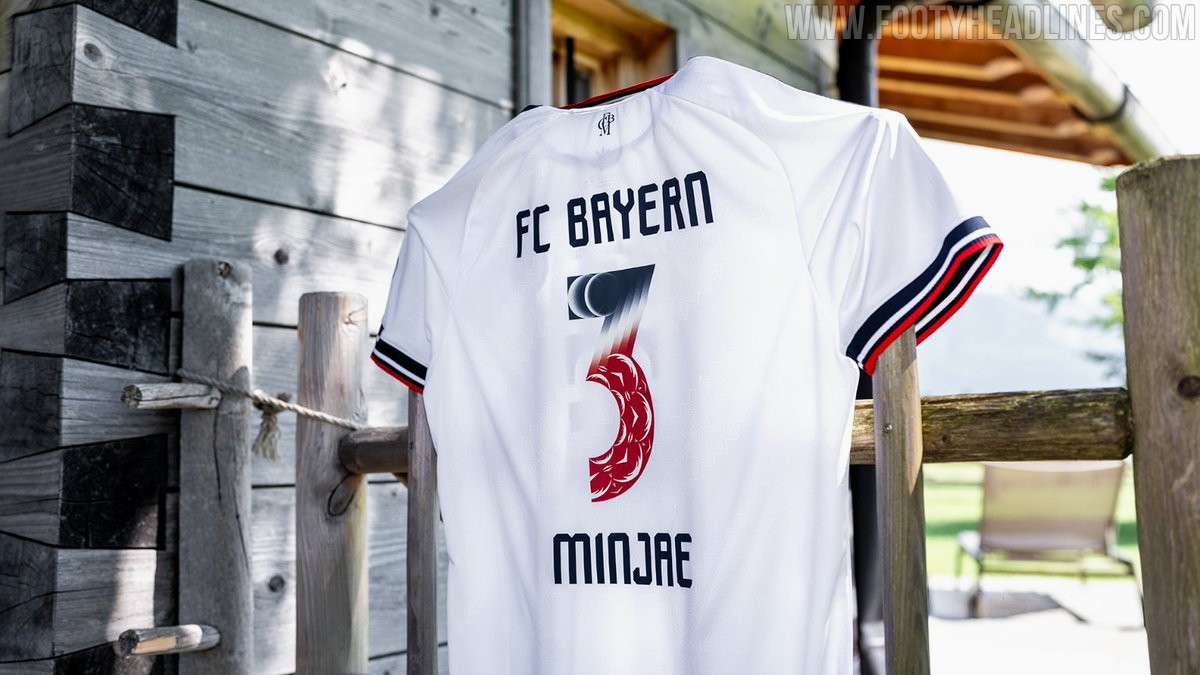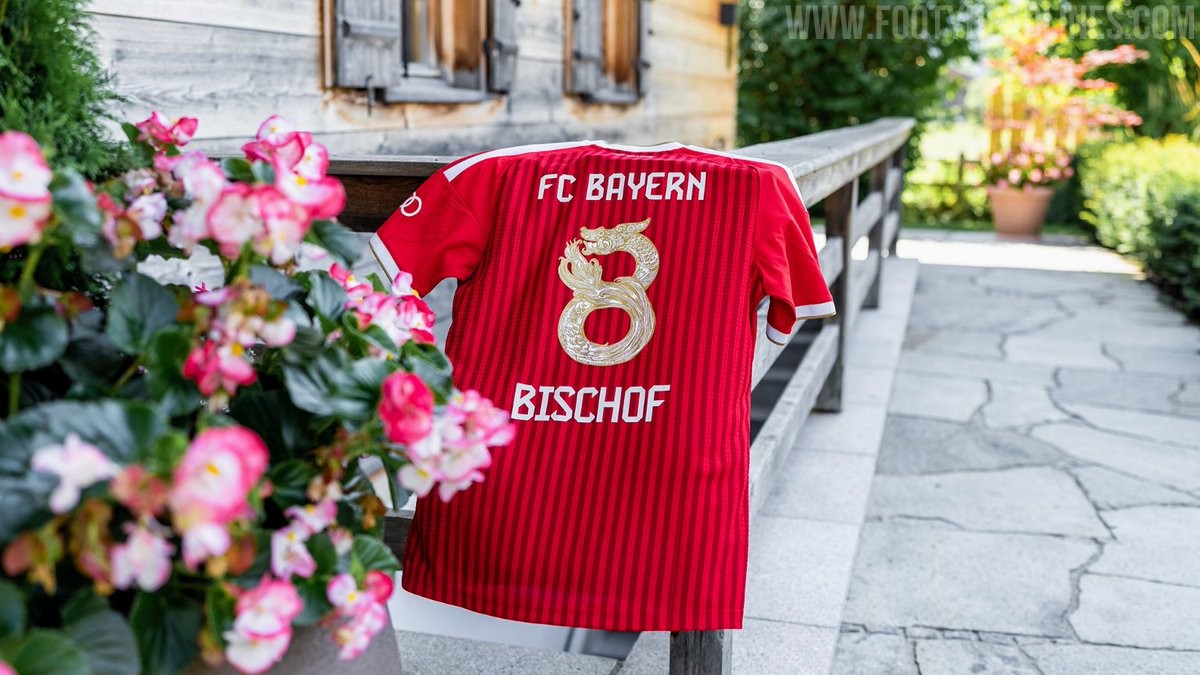
Special Bayern München Kit Fonts Released for Asia Friendlies
- Special Kit Fonts for Asia Friendlies: Bayern München released custom shirt printing for their 26-27 pre-season Audi Summer Tour matches in Asia, specifically on Jeju Island, South Korea, and in Hong Kong.
- Cultural Design Collaboration: Created in collaboration with Hypebeast and adidas, each unique font design was based on local art and traditional culture, with Korean artist Dohee Khwon designing for Jeju and Kristopher Ho for Hong Kong.
Update - Thursday, August 5, 2026: Bayern München debuted the special away kit font in their pre-season friendly against Jeju SK FC. We also get a look at the special keeper typeface. Unfortunately, the special typeface is only available locally in South Korea.
FC Bayern Munich has revealed custom shirt printing for their upcoming friendly matches in Asia during the 26-27 pre-season tour. Created in collaboration with Hypebeast and adidas, the bespoke names and numbers will be worn during the German club's Audi Summer Tour matches on Jeju Island, South Korea, and in Hong Kong.
Each fixture features a unique font design rooted in local art and traditional culture. For the Jeju match, Korean artist Dohee Khwon based the design on Gime, a traditional paper craft unique to Jeju island tied to local rituals, incorporating subtle sun and moon graphics into the numbers. For the Hong Kong game at Kai Tak Stadium, local artist Kristopher Ho created an ornate gold dragon graphic woven into the numbering, drawing on ancient Chinese aesthetics.